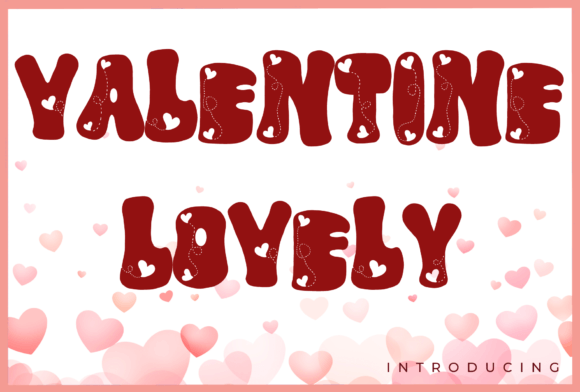
Step into a world of enchantment with Valentine Lovely Font, the ultimate font for expressing affection, joy, and charm. This captivating decorative font is crafted with intricate details, delicate curves, and a touch of whimsy, making it the perfect choice for creating heartfelt designs that capture the essence of love.
With Valentine Lovely Font, you can create eye-catching display posters that convey messages of adoration and affection. Its elegant charm adds a touch of sophistication to any design, making it ideal for invitations, greeting cards, and other printed materials. This font is more than just a collection of characters; it's an expression of creativity, imagination, and love.
Whether you're a professional designer or simply looking to add a personal touch to your projects, Valentine Lovely Font is the perfect choice. Its versatility extends to a wide range of applications, from digital art and illustrations to social media posts and website designs. It's the perfect font for capturing the joyful spirit of Valentine's Day and adding a touch of romance to any project.
Let Valentine Lovely Font be your creative companion as you spread love and joy through your designs. Its enchanting beauty and versatility will make your projects stand out and leave a lasting impression. Embrace the magic of this font and transform your designs into expressions of love and creativity.